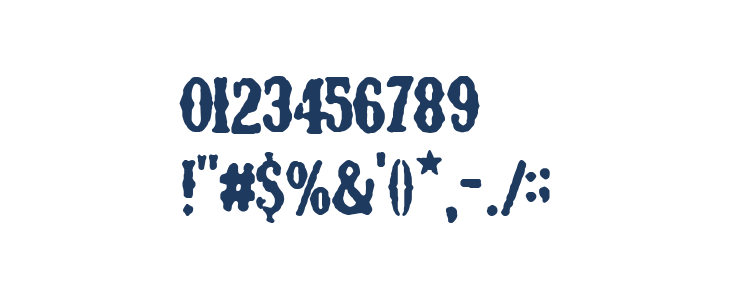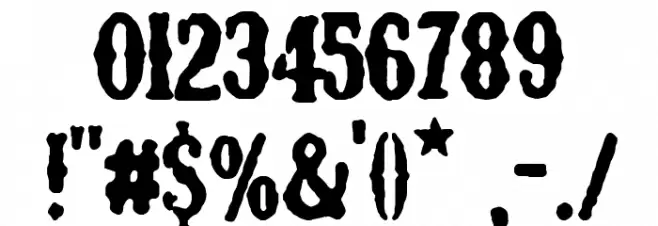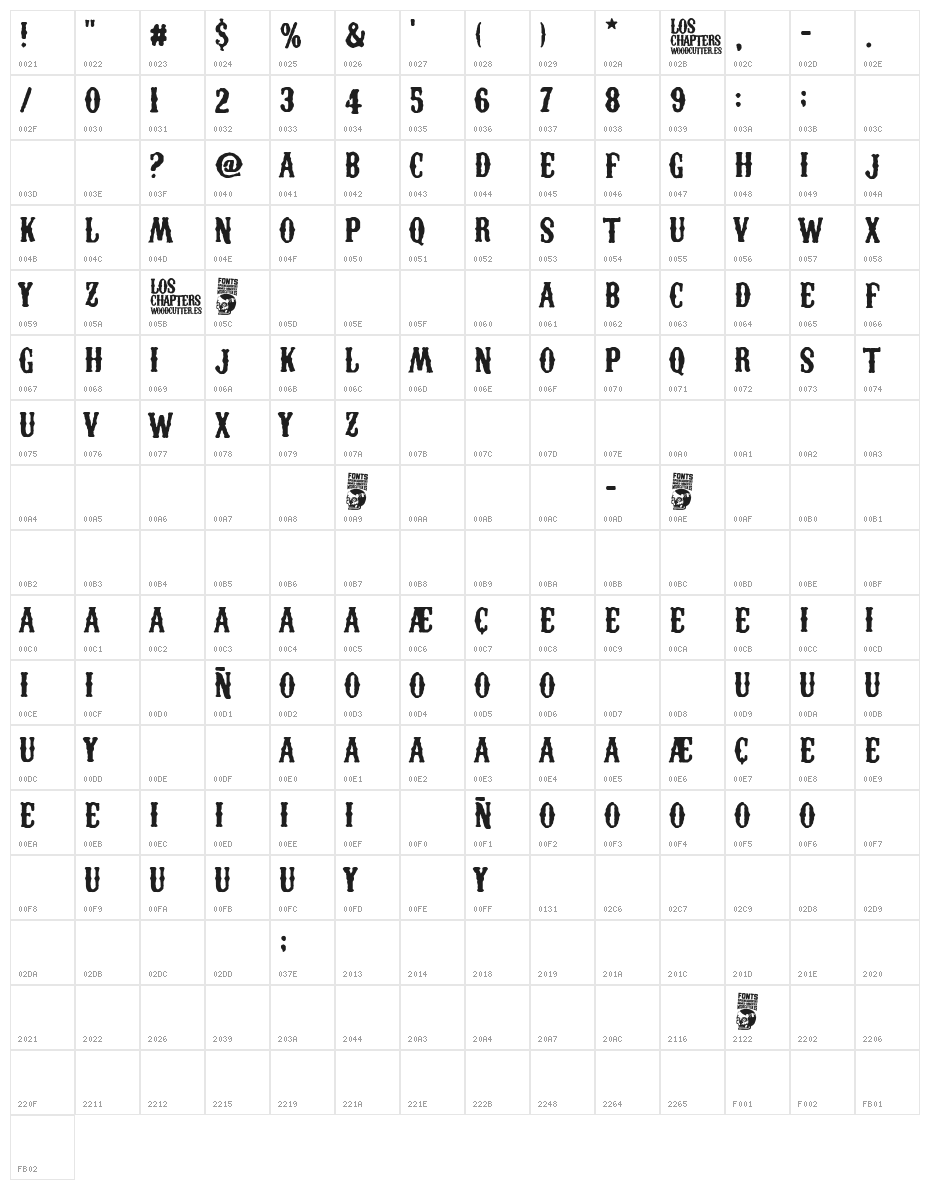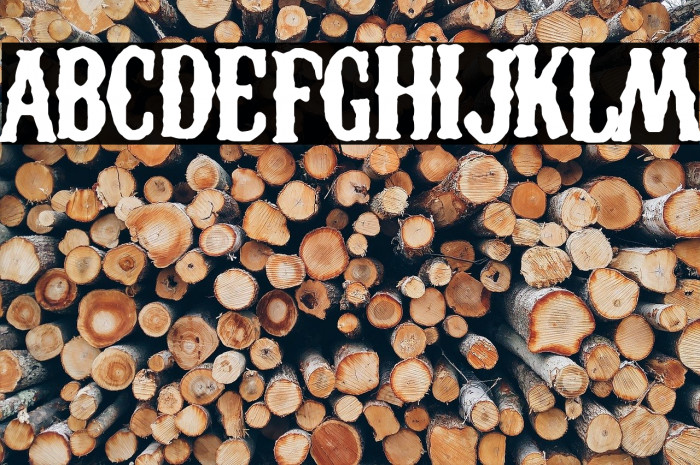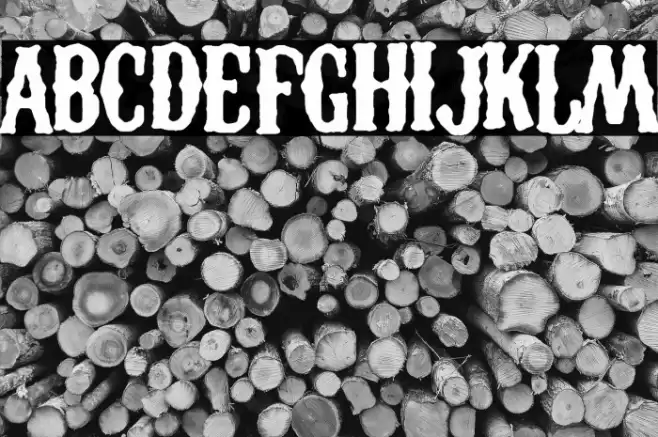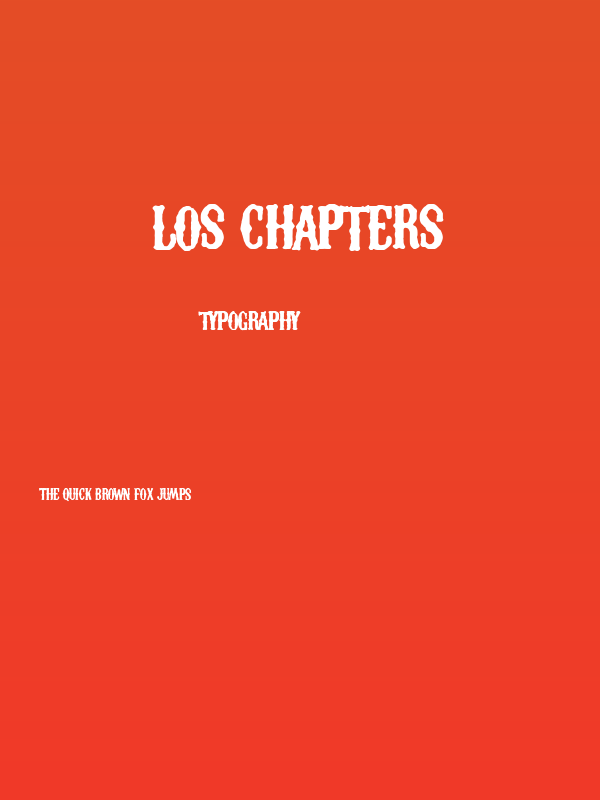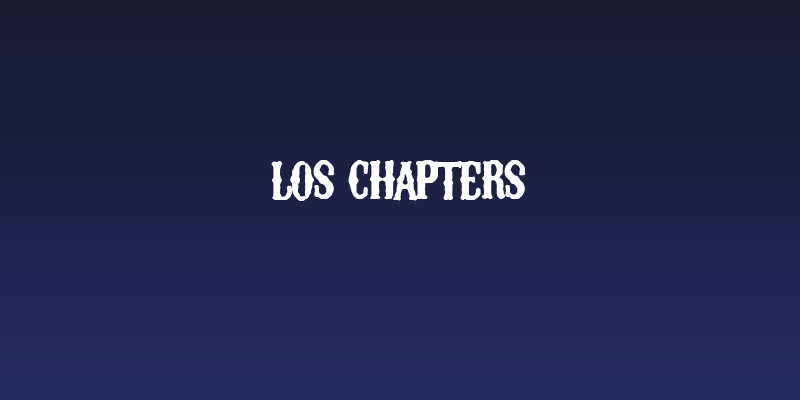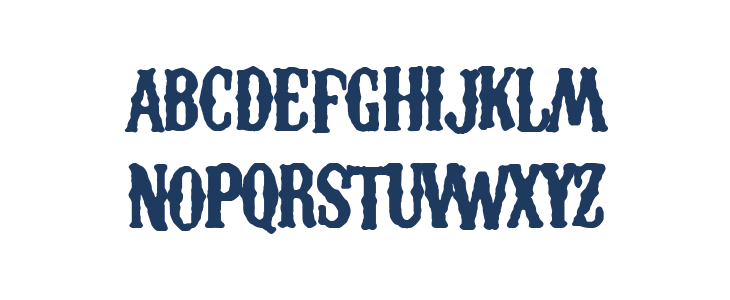
Los Chapters Font
Los Chapters Description
This font features a bold and rugged style with a distinctly vintage feel. The characters are heavily weighted with a textured appearance, giving them a worn, distressed look. The uppercase letters are prominent and assertive, while the numbers and special characters maintain the same boldness and texture. The font's design is reminiscent of old Western or vintage signage, making it ideal for projects that require a strong, impactful presence. The spacing between characters is relatively tight, enhancing the boldness and cohesiveness of the text. This font is particularly suited for decorative purposes, where a strong visual impact is desired.
| Proposed Projects | Ideal for vintage-themed posters, logos, signage, and branding projects that require a strong, bold statement. |